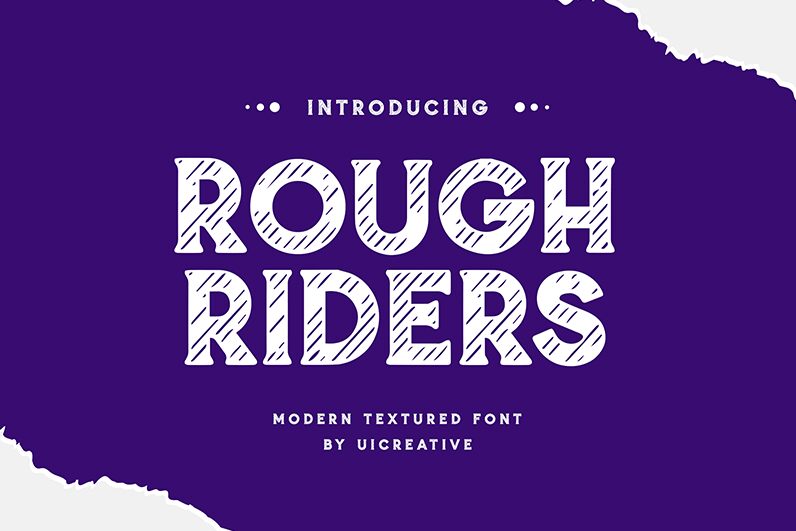
Roughriders Regular
Roughriders font by UI Creative is a retro display typeface that lives up to its name thanks to the rugged graphic style it embodies. Each letter looks worn out and presents an impactful presence that brings industrial vibes to mind. The texture completes the design and takes each letter from regular symbols to attention-capturing elements for interesting logs.
Free, versatile, and ready for multiple purposes, this font makes a great candidate for posters, print ads, t-shirt typography, packaging designs among other options. Prepare some mind-blowing logotypes with plenty of character or create mesmerizing attention-seeking headlines with it across the web or in printed media.